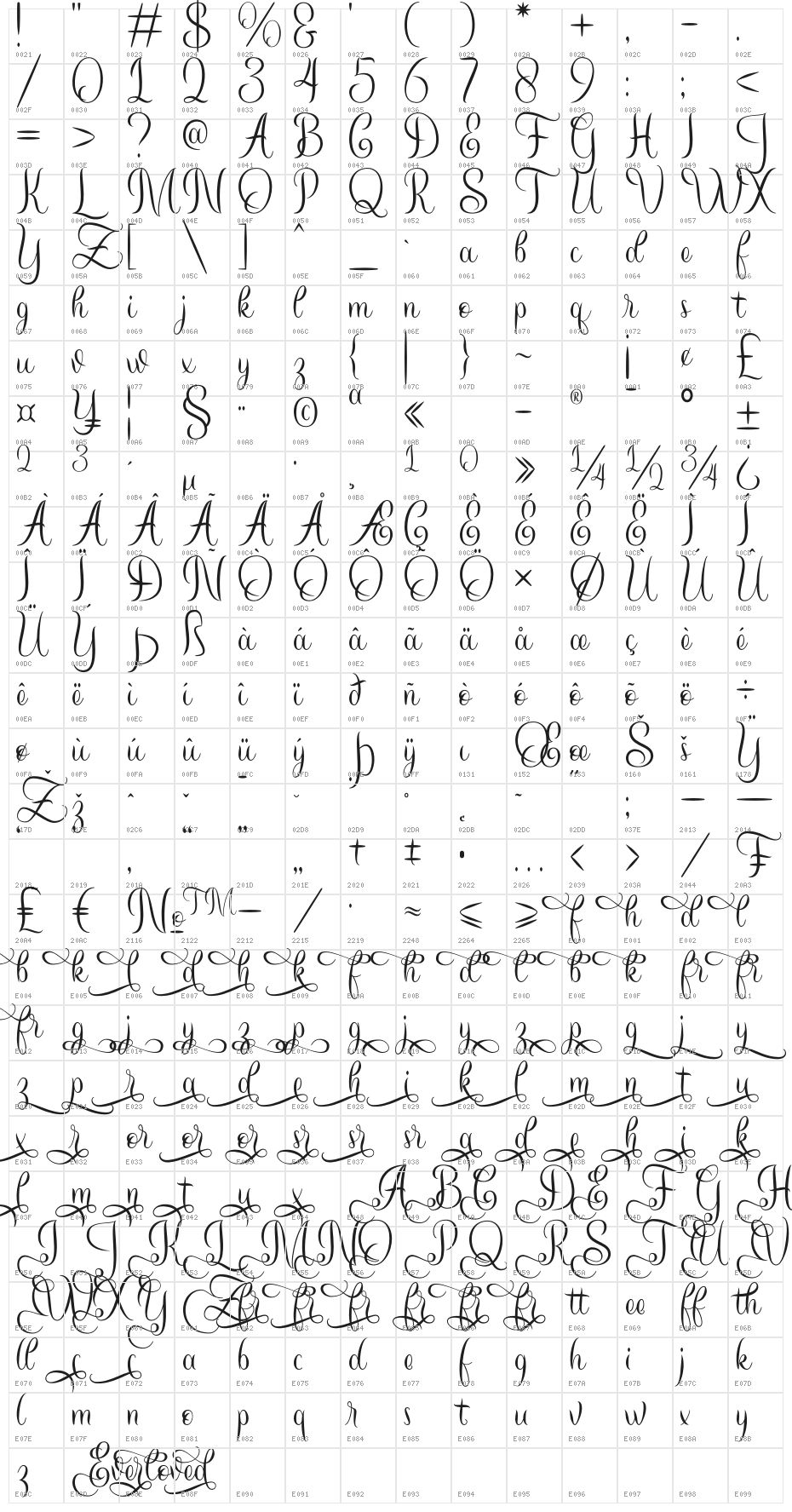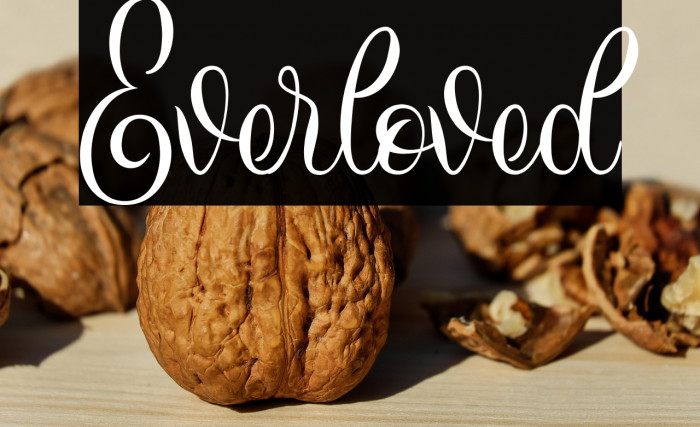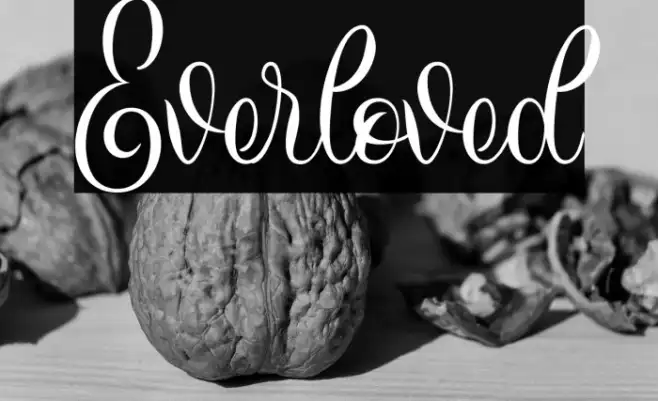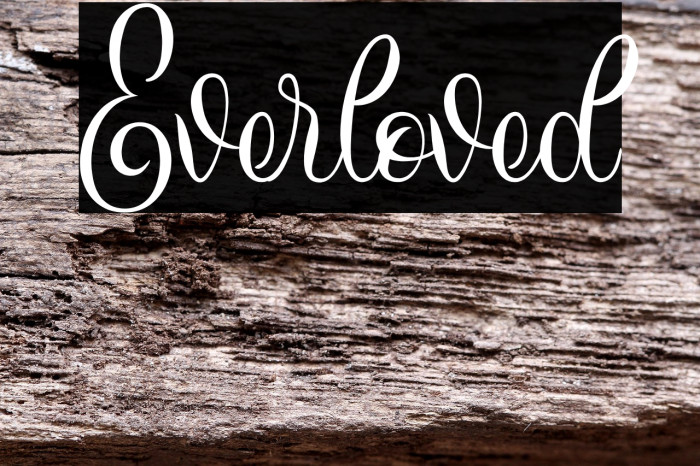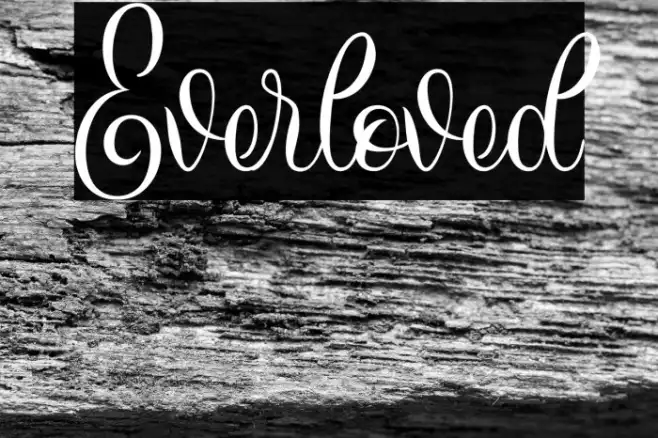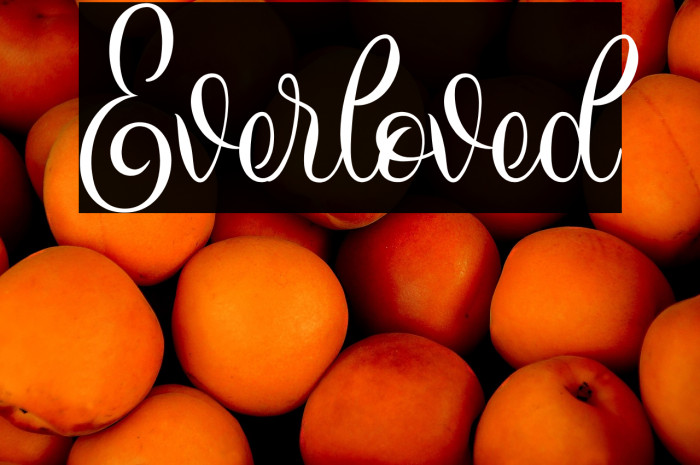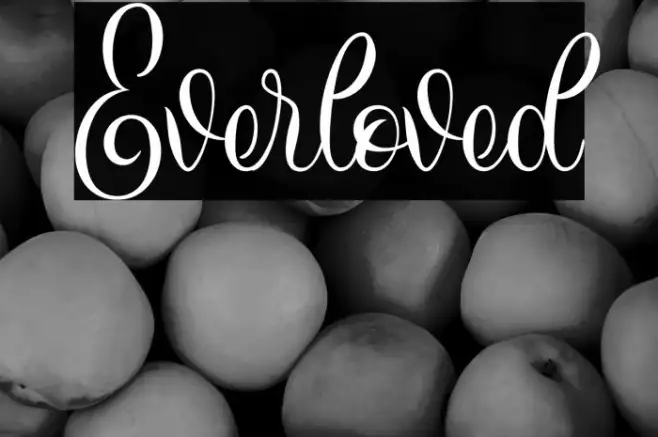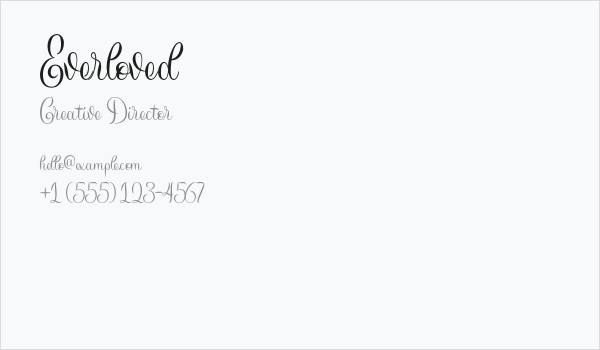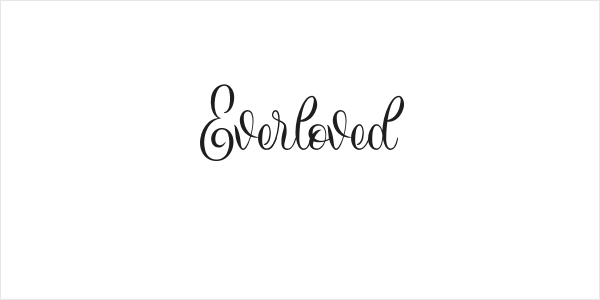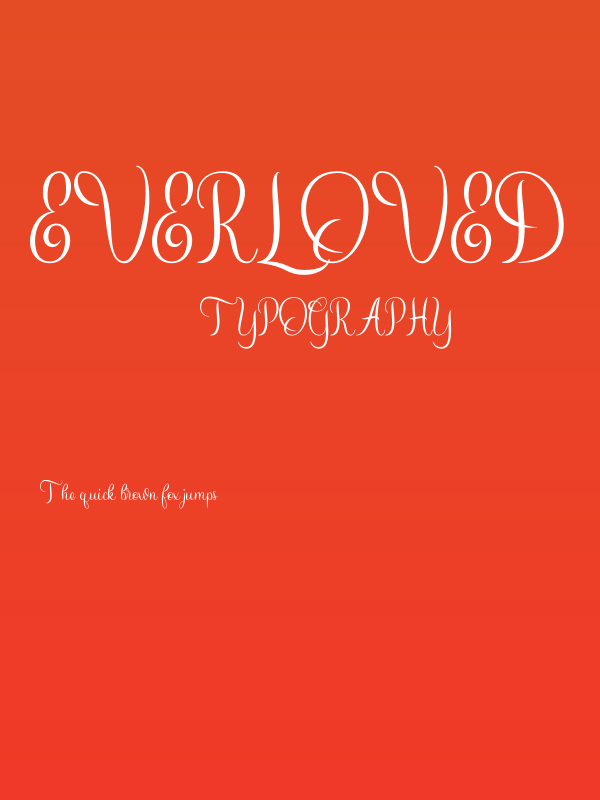
Everloved Font
Everloved Description
This font exhibits a flowing, cursive style with elegant loops and swirls, giving it a sophisticated and artistic appearance. The uppercase letters are tall and graceful, with sweeping ascenders and descenders that add a sense of movement. The lowercase letters maintain a consistent flow, connecting smoothly to form a cohesive script. Numbers and special characters are designed to complement the overall aesthetic, featuring similar curves and flourishes. The font's delicate strokes and intricate details make it ideal for decorative purposes, where a touch of elegance is desired.
| Proposed Projects | Ideal for wedding invitations, greeting cards, branding, and decorative signage. |